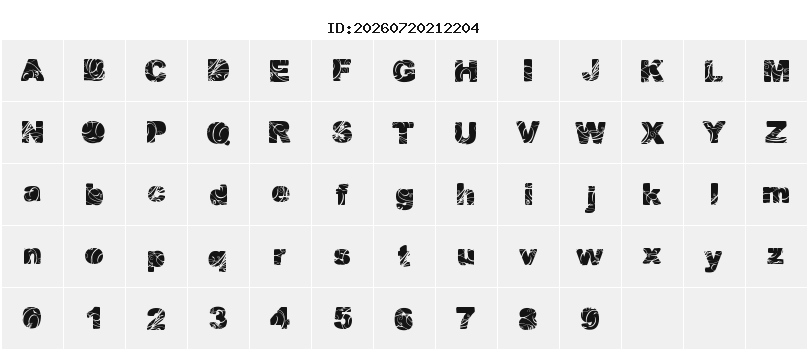
• Font Name: Forced Flowers
About Forced Flowers.ttf
Forced Flowers.ttf is a modern, elegant sans-serif font designed for ultimate readability and visual harmony. Perfect for branding, headlines, web design, and print materials.